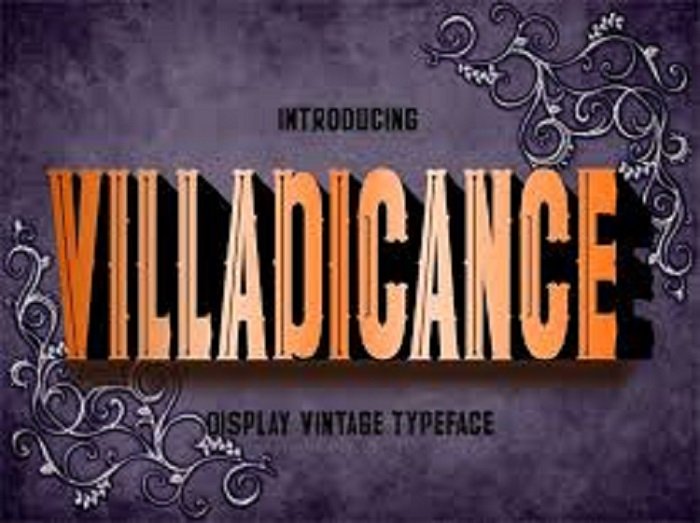
Villadicance Display Font
Villadicance is a modern display font. It has a unique urban style that makes it perfect for street art, tattoos, posters, t-shirts, logos and much more!